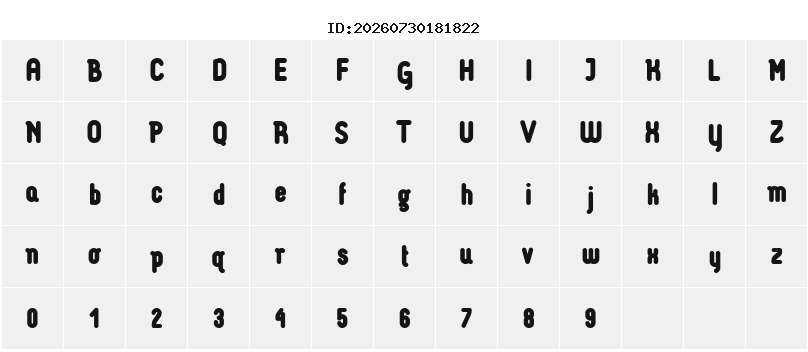
• Font Name: Luco Sans
• Designer: Lukas Bischoff
About Luco Sans.ttf
Luco Sans.ttf is a modern, elegant sans-serif font designed for ultimate readability and visual harmony. Perfect for branding, headlines, web design, and print materials.